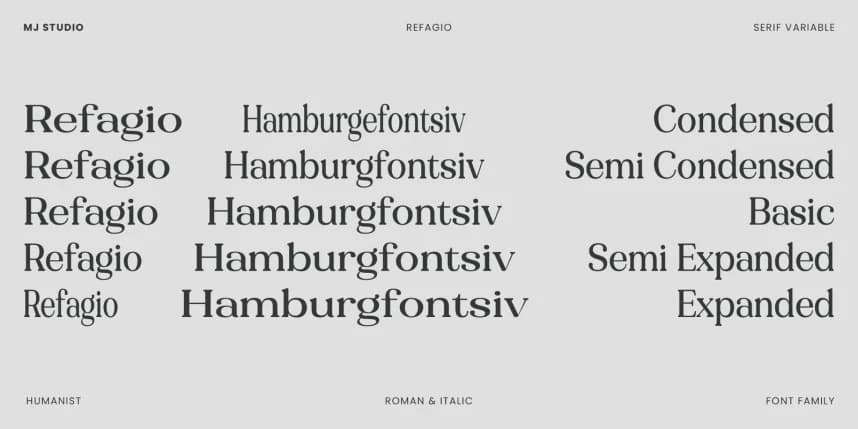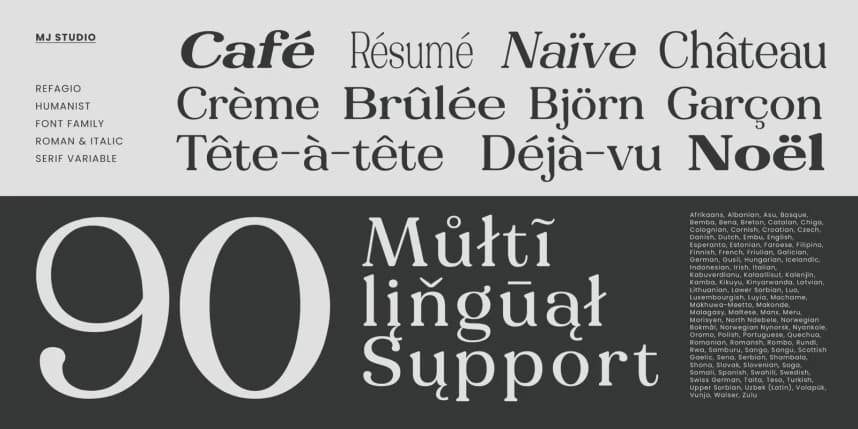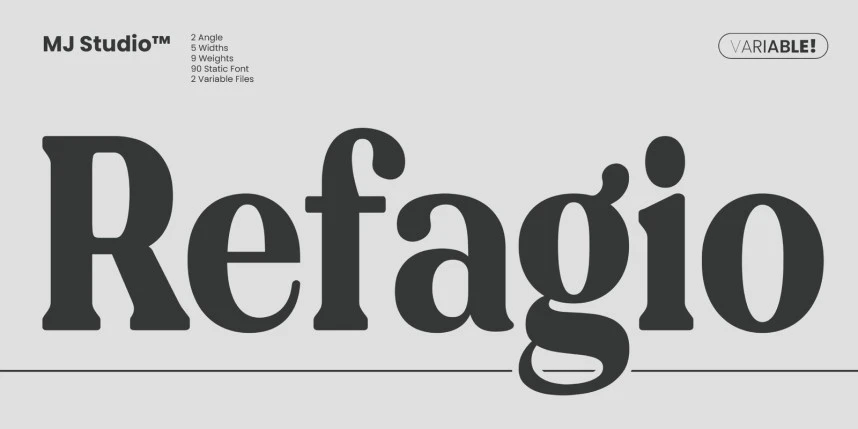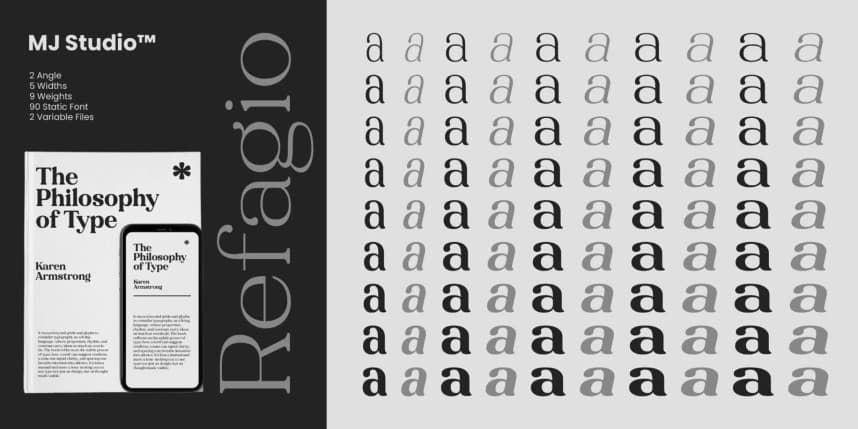
Refagio Font Family – Elegant Serif with Modern Character Refagio is an elegant serif typeface that blends timeless sophistication with a modern sensibility. Crafted with refined details and balanced proportions, it delivers a luxurious